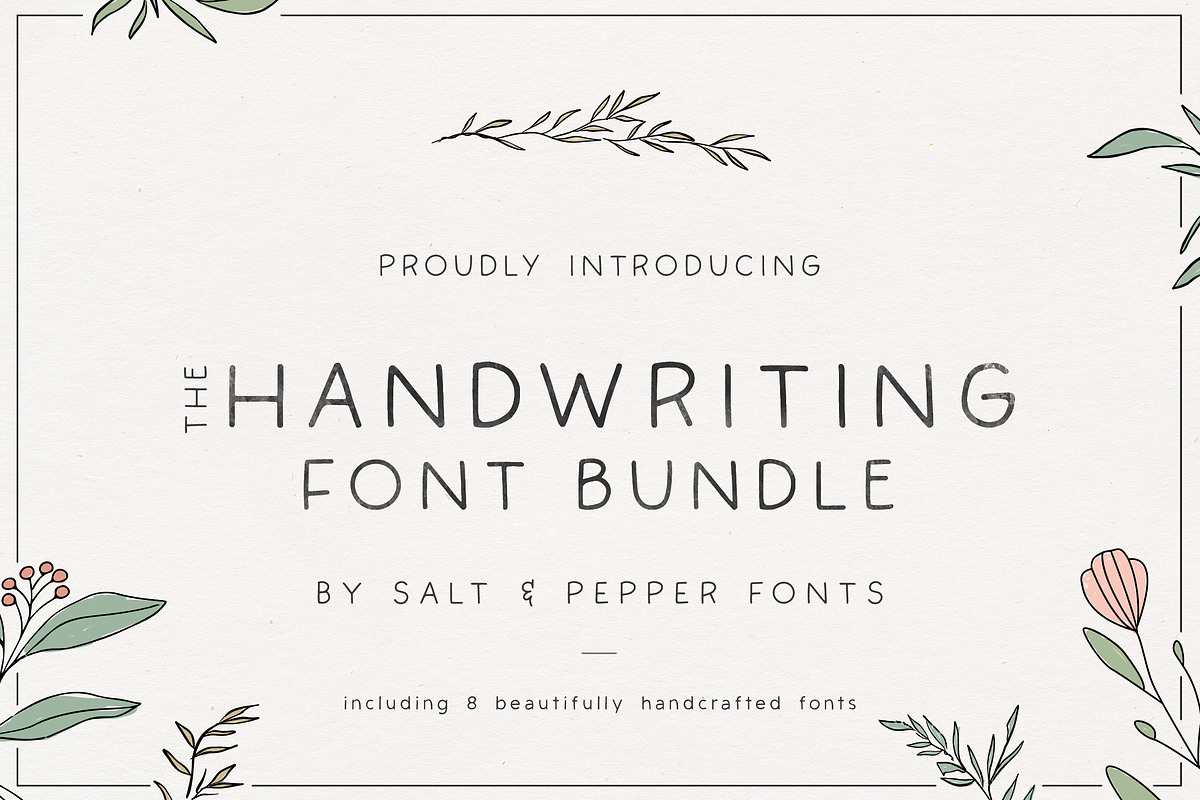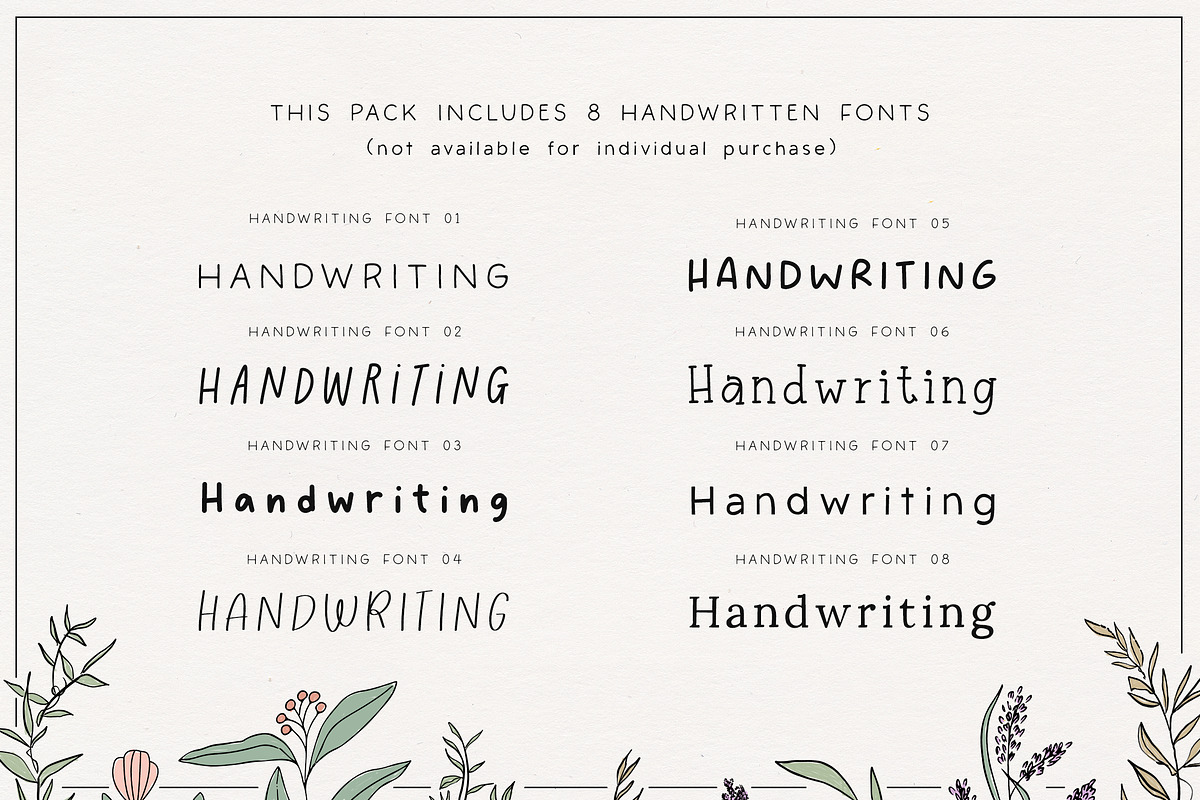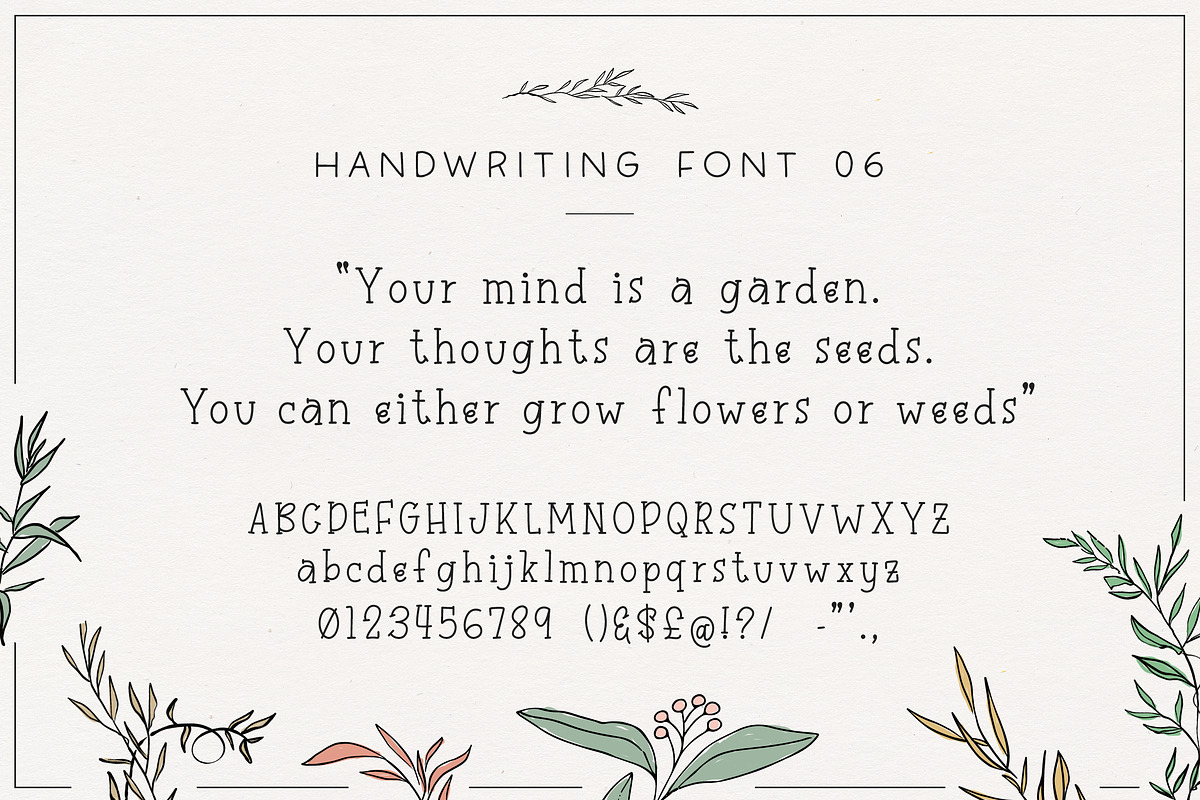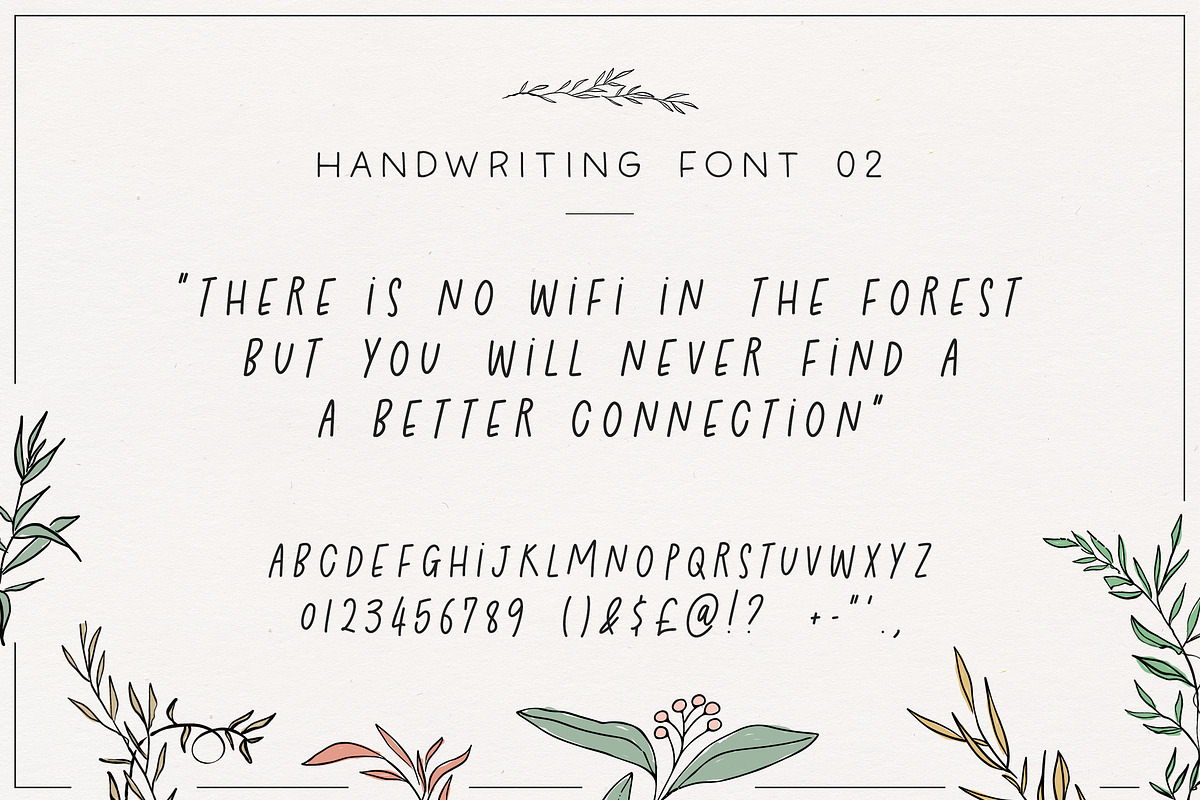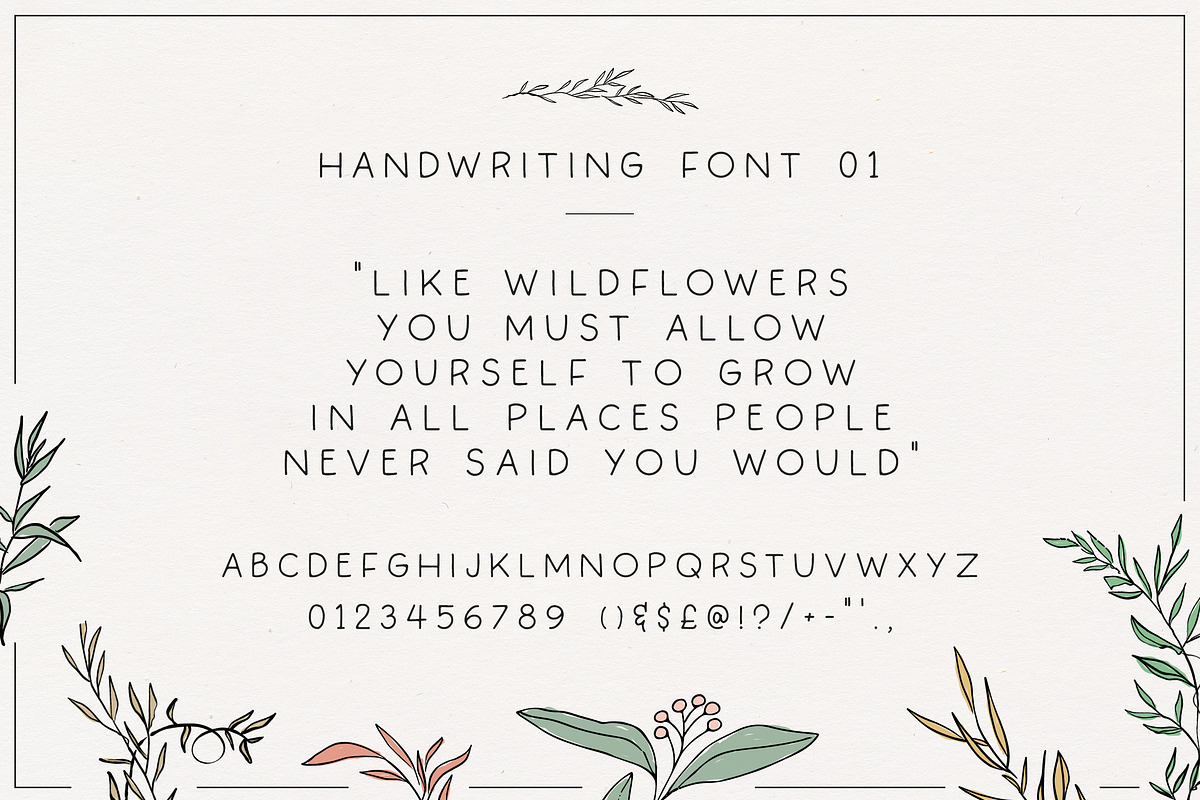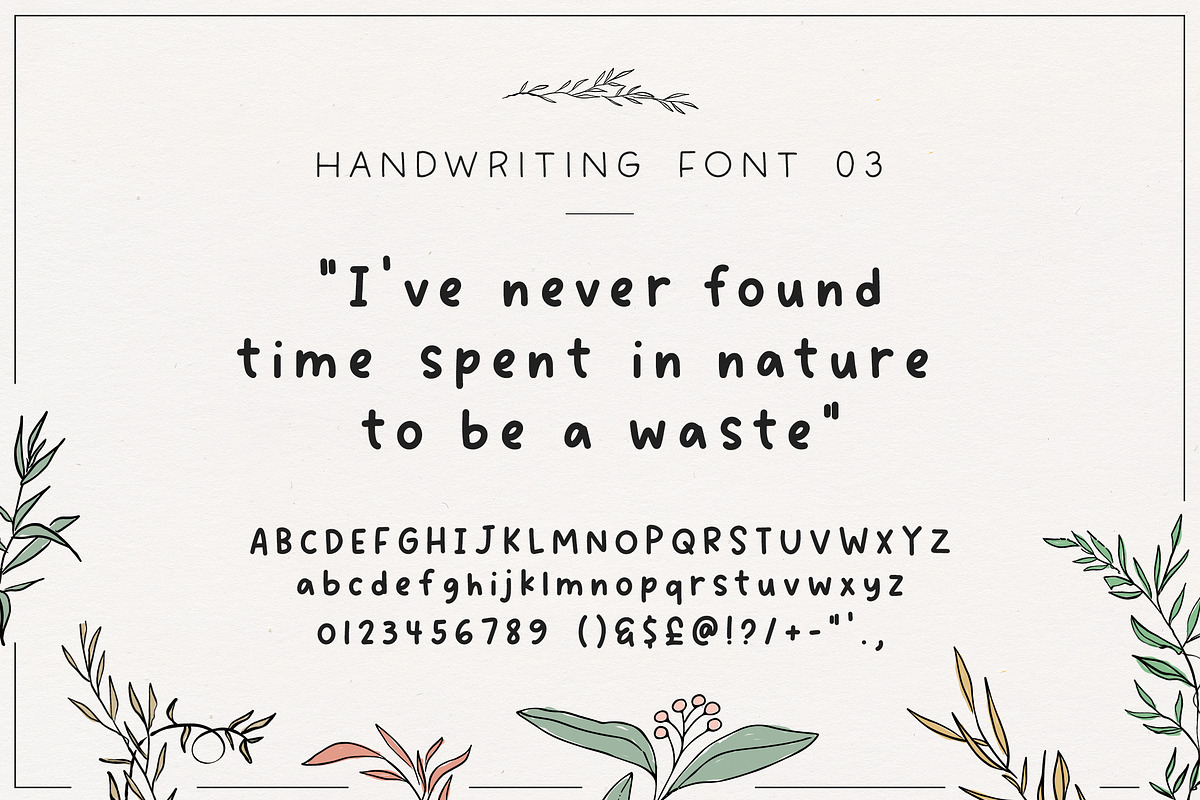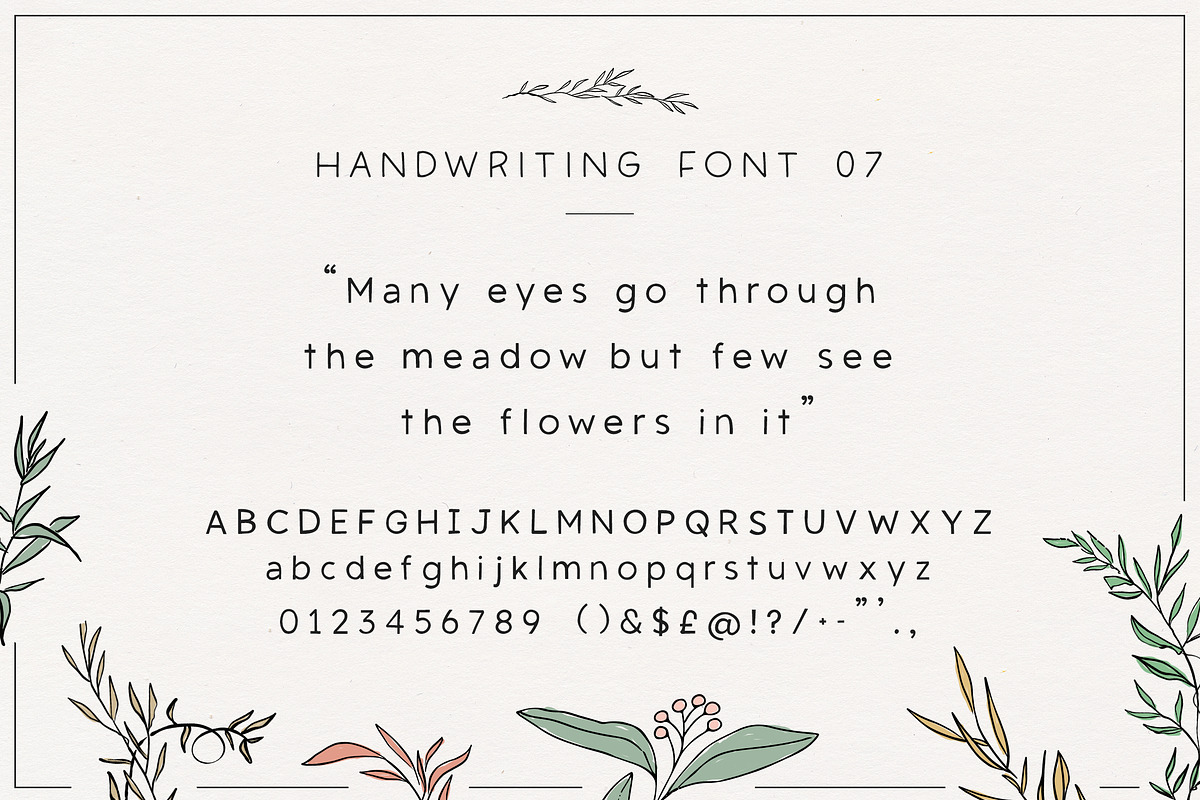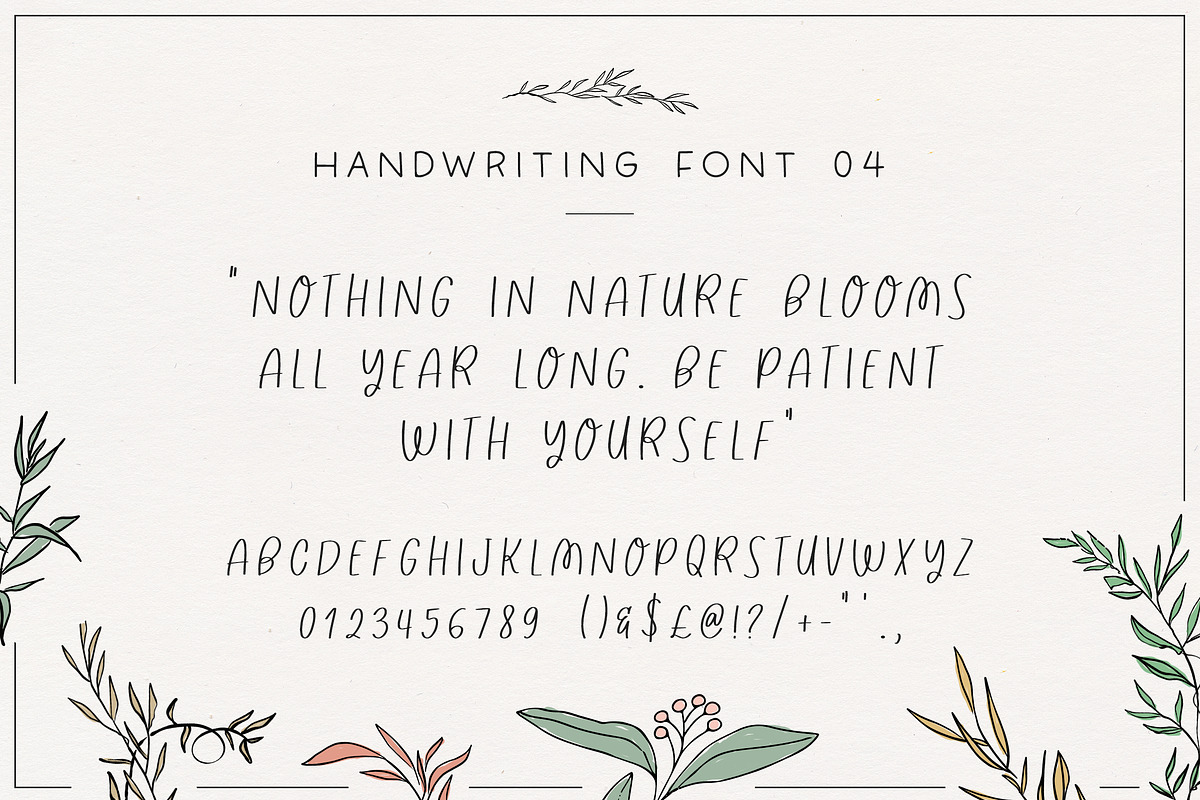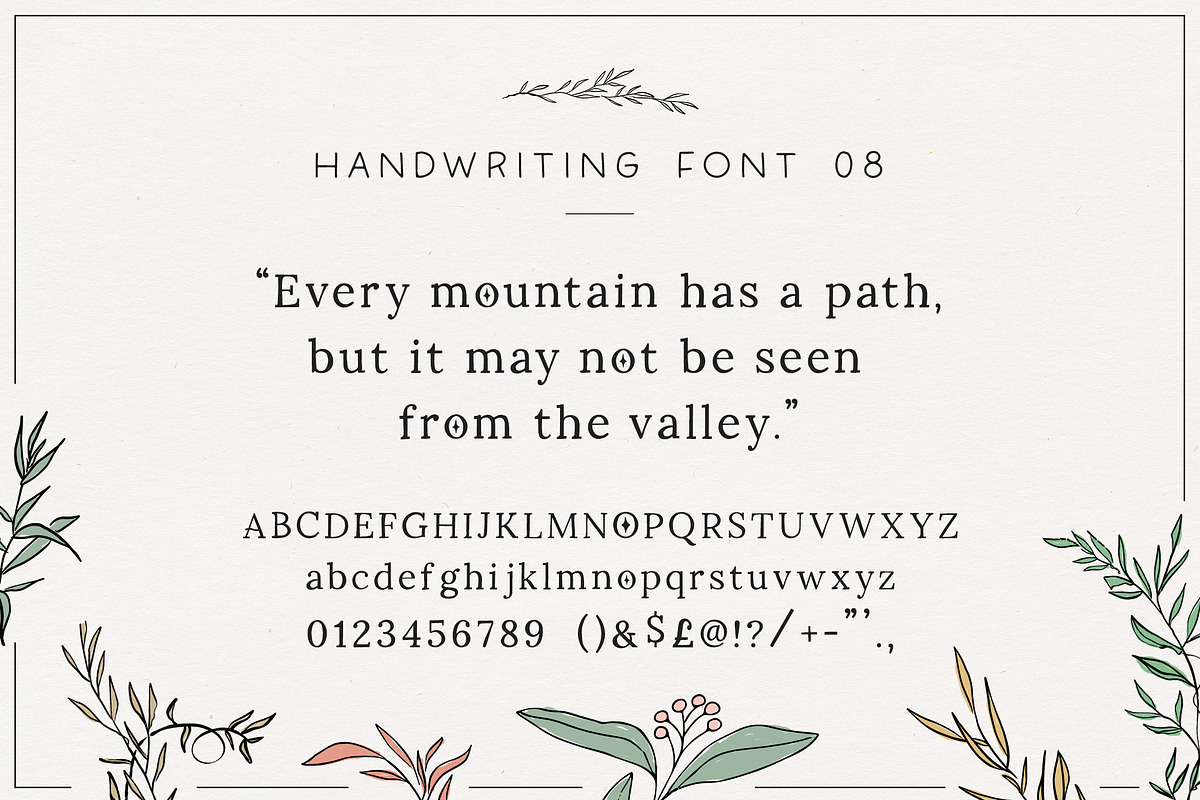
The Handwriting Font Bundle
INTRODUCING The Handwriting Font Bundle. Eight gorgeous unique Handwriting style fonts perfect for giving any project a handmade feel. All fonts work perfectly on Procreate, Canva Pro, Cricut, Silhouette, Photoshop and many more programs. These fonts cannot be purchased separately.